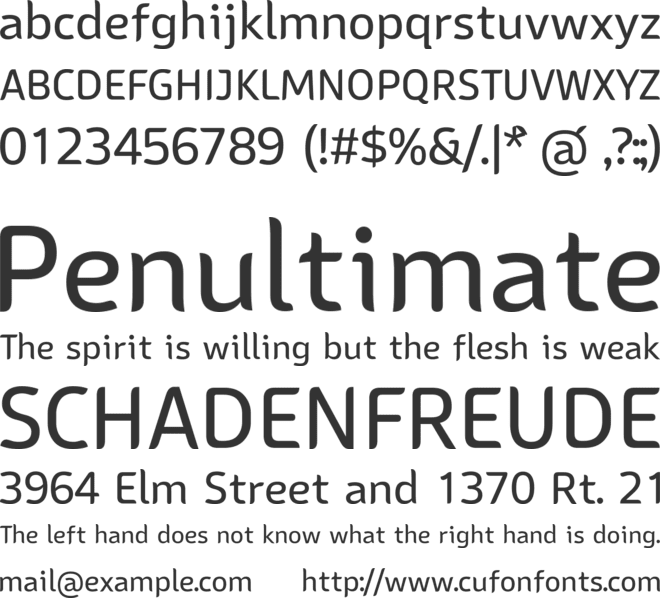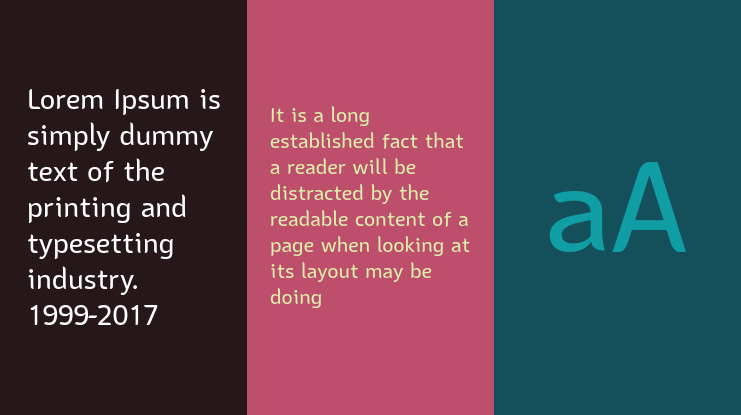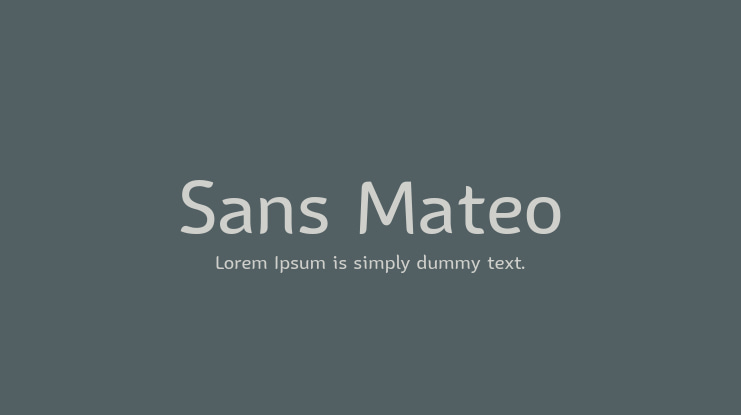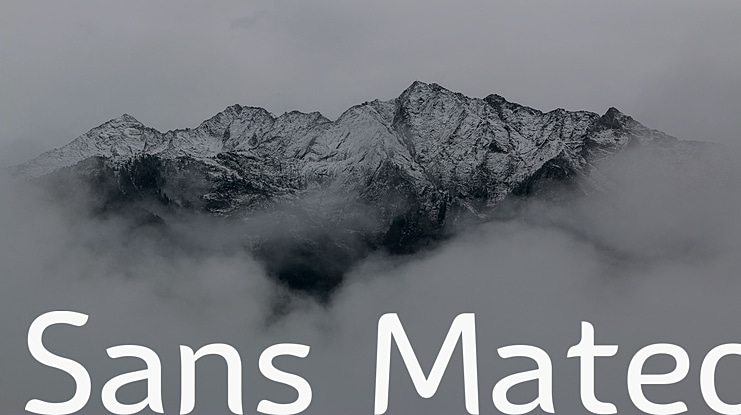
This sans serif font originally started out as a stripped down version of Bainsley but simplified and completely redrawn. I just needed a testbed font to try out some new ideas with open type. But after a while I realised that it looked a lot like a bland sans serif just like the thousands of bland sans serif fonts which are available all over the web. So I decided to try to make it a little different and added a few curves to the ends of the stems and limbs.The font has more than 16 thousand Kerning Pairs and supports fractions, superscript and subscript. As you might have guessed from the fact that this was built as a testbed font for new ideas with open type it has a lot of open type features. Stylistic set 01 turns the single storey 'g' into a two storey 'g', Stylistic Set 02 is only available in Dutch and cancels the localisation of IJ ligatures, if anyone wants to do this.The default is tabular numbers but this can be swapped for proportional numbers using the 'pnum' function._______________________________________________________If you find any bugs in the font please contact me at  If any bugs are reported I will attempt to fix them, if no bugs are reported then I may not find them myself and so they will probably not be fixed.I have included the source files if you want to make any modifications but you will need Font Creator to open these files. You can get Font Creator at https://www.high-logic.com/font-editor/fontcreator